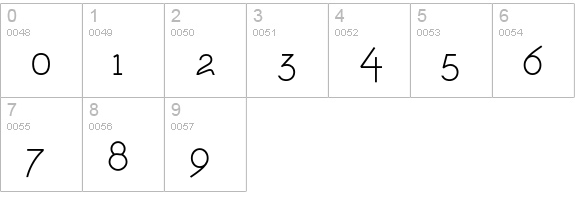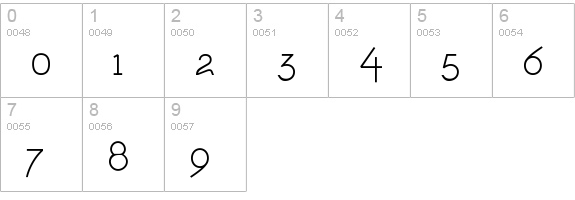
Paris Pro Light is a refined, elegant variant in the Paris typeface family \xE2\x80\x94 well suited to elegant body text, refined sub-headings, and luxury branding.
Paris Pro Light is a sleek and elegant font that exudes sophistication and modernity. Its clean lines and stylish curves make it perfect for a wide range of design projects, from branding to editorial design. The light weight of the font gives it a delicate and refined appearance that adds a touch of sophistication to any project. The best part about Paris Pro Light font is that it is available for free download at FontsMarket.com. This means that you can easily access this high-quality font without having to spend a dime. Whether you are a professional designer or someone looking to add a touch of class to your personal projects, Paris Pro Light font is the perfect choice for adding a touch of elegance to your work.